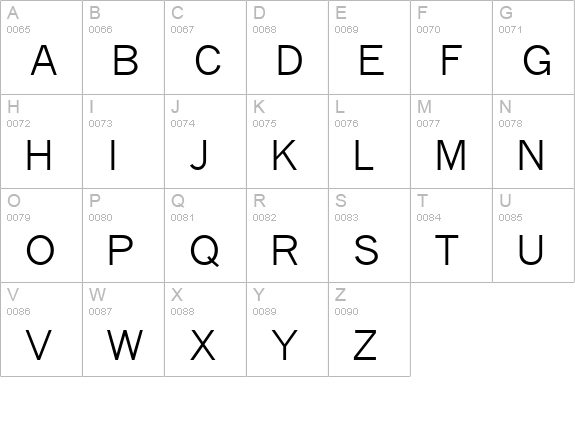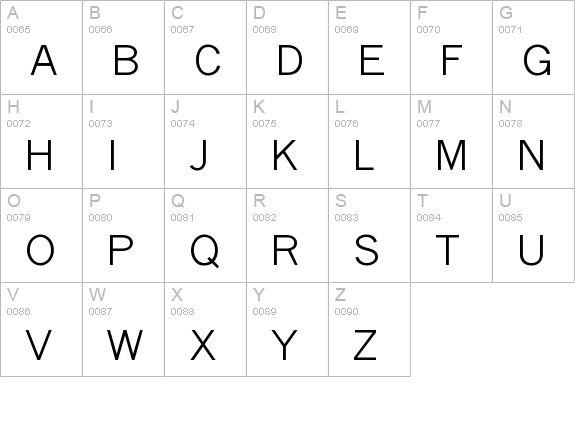
QuickType Font Details
Introducing QuickType, a stunning and versatile font that embodies the perfect balance between elegance and modernity. With its clean lines and smooth curves, QuickType is the ultimate choice for designers seeking to make a bold statement in their projects. This font exudes a sense of sophistication and professionalism, making it suitable for a wide range of applications. Whether you're designing a logo, creating eye-catching headlines, or crafting beautiful typography for a website, QuickType will effortlessly elevate your designs to new heights. What sets QuickType apart is not just its impeccable design, but also the fact that it is available for free. That's right, this incredible font can be freely downloaded at FontsMarket.com, allowing you to access its immense potential without any limitations. QuickType offers a wide range of weights and styles, enabling you to experiment and find the perfect fit for your creative endeavors. From sleek and slim variations to bold and powerful options, this font guarantees that you'll find the right style to bring your ideas to life. With its excellent legibility, QuickType ensures that your message is delivered with maximum impact. Whether it's in print or on screen, this font remains clear and easy to read, making it a reliable choice for any project. Don't miss out on the opportunity to enhance your designs with QuickType. Download it for free at FontsMarket.com and unlock a world of endless possibilities. Elevate your typography game and make a lasting impression with the elegant and versatile QuickType font.